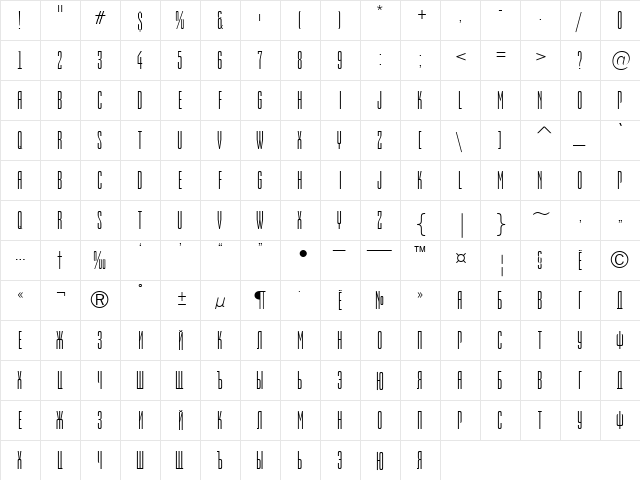
a_EmpirialNr Regular
Design Context for a_EmpirialNr Typeface
a_EmpirialNr offers clean, dependable letterforms without strong stylistic allegiance, making it a practical choice for designers who need flexibility.
Pro Tip: Use a_EmpirialNr in both headline and body roles to test its range before committing to a single application.